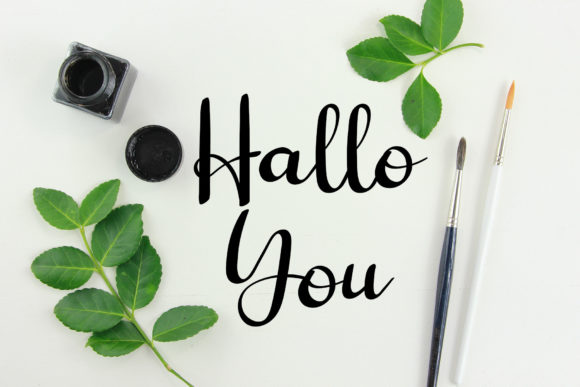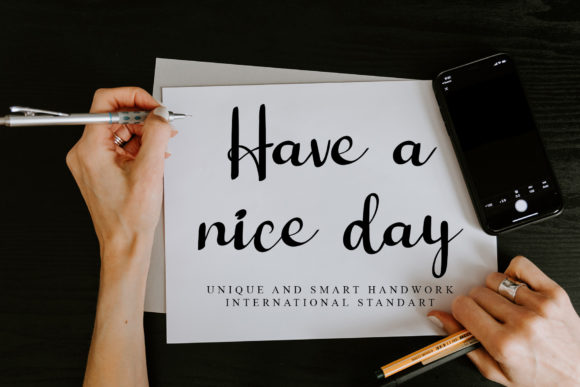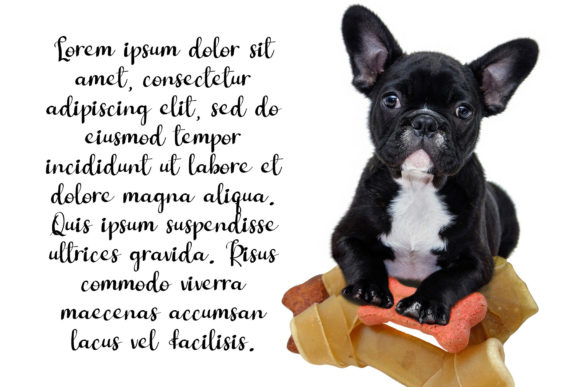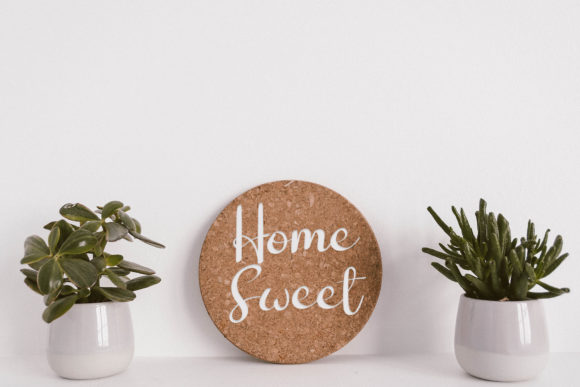
Digital Paper Font
About Digital Paper Font
Digital Paper is a lovely and delicate script font that exudes elegance and class. This font was particularly crafted for those who need a beautiful and refreshing look to their designs.